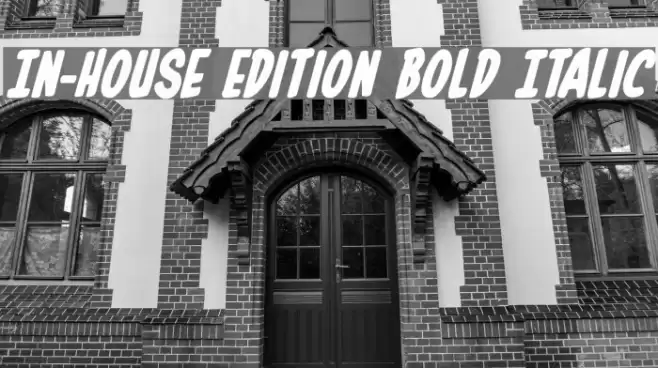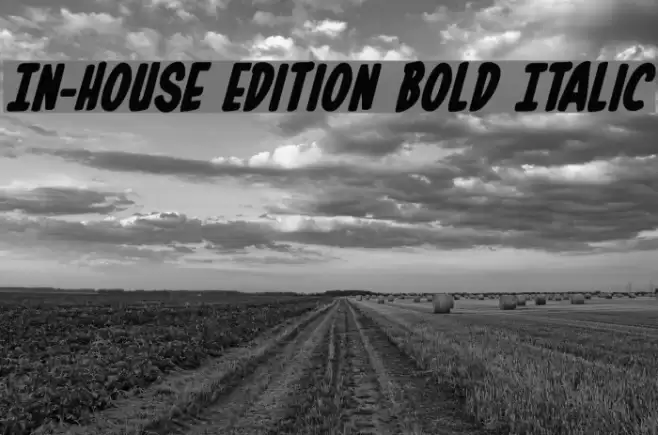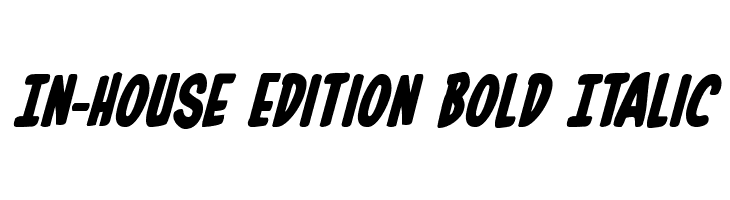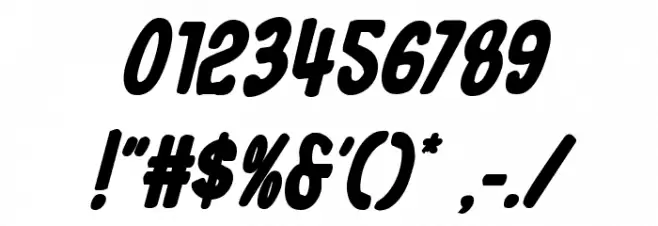
In-House Edition Bold Italic Font
In-House Edition Bold Italic Description
This font features a bold and italicized style with a playful and dynamic appearance. The characters are rounded and slightly slanted, giving it a sense of movement and energy. The strokes are thick and consistent, providing a strong visual impact. The uppercase and lowercase letters maintain a uniform style, while the numbers and special characters are designed to match the overall aesthetic. This font is suitable for projects that require a bold and lively touch.
A bold, italicized font with rounded, dynamic characters from Comic fonts.
- Proposed Projects: Ideal for posters, branding, headlines, and any design requiring a bold, energetic look.